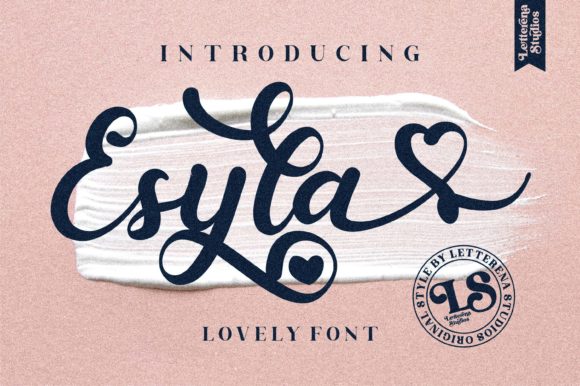
Introducing Esyla Font: The Perfect Blend of Boldness and Romance
Are you looking for a font that can add a touch of elegance and sophistication to your love letters, romantic quotes, or any other written content? Look no further than Esyla Font, a bold yet romantic script font that is sure to make your words a real work of art. In this article, we’ll take a closer look at Esyla Font, its features, and how it can elevate your written content to the next level.
What Makes Esyla Font Special?
Esyla Font is a cursive and elegant script font that boasts a unique blend of boldness and romance. Its flowing lines and curves give it a sophisticated and refined look that’s perfect for a variety of design projects. Whether you’re creating a love letter, a romantic quote, or a wedding invitation, Esyla Font is sure to make your content stand out.
One of the standout features of Esyla Font is its PUA (Private Use Area) encoding. This means that you can access all of the glyphs and swashes with ease, giving you greater flexibility and creative control over your design. With PUA encoding, you can easily insert alternate characters, ligatures, and swashes to add more flair to your text.
Design Uses for Esyla Font
Esyla Font is a versatile font that can be used for a wide range of design projects. Here are some ideas to get you started:
- Love Letters and Romantic Quotes: Esyla Font is perfect for writing love letters, romantic quotes, or any other content that requires a touch of elegance and sophistication.
- Wedding Invitations and Stationery: The font’s elegant and refined look makes it ideal for wedding invitations, stationery, and other wedding-related design projects.
- Branding and Packaging: Esyla Font can be used for branding and packaging design, particularly for luxury brands that require a sophisticated and high-end look.
- Social Media Graphics: The font’s bold and romantic style makes it perfect for social media graphics, such as Instagram posts, Facebook quotes, and more.
Typographic Features of Esyla Font
Esyla Font boasts a range of typographic features that make it a standout font. Here are some of its key features:
- Cursive and Elegant: Esyla Font has a cursive and elegant look that’s perfect for creating sophisticated and refined designs.
- Bold yet Romantic: The font’s bold style is balanced by its romantic and elegant touch, making it perfect for a wide range of design projects.
- PUA Encoded: Esyla Font is PUA encoded, which means you can access all of the glyphs and swashes with ease.
- Alternate Characters and Ligatures: The font includes alternate characters and ligatures, giving you greater flexibility and creative control over your design.
How Esyla Font Compares to Other Fonts
Esyla Font is a unique font that stands out from other script fonts on the market. Here’s how it compares to other fonts:
- More Elegant than Script Fonts: Esyla Font is more elegant and refined than many script fonts, making it perfect for designs that require a sophisticated look.
- More Versatile than Serif Fonts: The font’s cursive and elegant style makes it more versatile than serif fonts, which can be limiting in their design applications.
- More Romantic than Sans-Serif Fonts: Esyla Font’s romantic and elegant touch sets it apart from sans-serif fonts, which can be cold and impersonal.
Tips for Using Esyla Font
Here are some tips for using Esyla Font in your designs:
- Use it for Headings and Titles: Esyla Font is perfect for headings and titles, where its bold and elegant style can make a big impact.
- Pair it with Simple Fonts: Pair Esyla Font with simple fonts, such as Arial or Helvetica, to create a striking contrast and add visual interest to your design.
- Experiment with Swashes and Glyphs: Take advantage of Esyla Font’s PUA encoding and experiment with swashes and glyphs to add more flair to your design.
Esyla Font is a bold yet romantic script font that’s perfect for designs that require a touch of elegance and sophistication. Its PUA encoding, cursive and elegant style, and typographic features make it a versatile font that can be used for a wide range of design projects. Whether you’re creating love letters, wedding invitations, or social media graphics, Esyla Font is sure to make your content stand out. So why not give it a try and see the difference it can make in your designs?